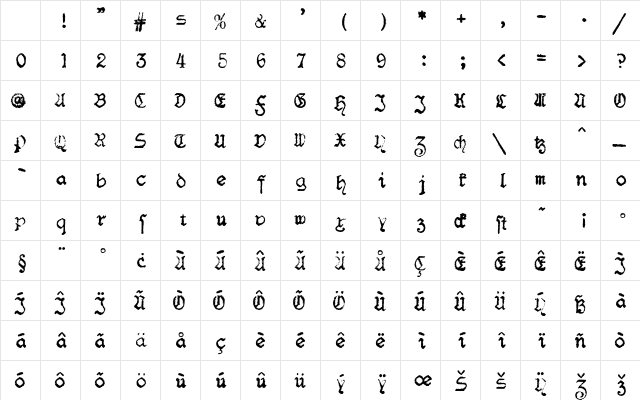
Complete F25 BlackletterTypewriter Regular glyph index. Displaying only characters natively supported by F25 BlackletterTypewriter Regular font.
F25 BlackletterTypewriter draws on the rich tradition of blackletter calligraphy, with dense, angular strokes that evoke medieval manuscripts and old-world craftsmanship.
Font Pairing: Pair with a clean neutral sans-serif for body copy to let F25 BlackletterTypewriter's character lead without overwhelming the composition.
Pro Tip: Reserve F25 BlackletterTypewriter for display and logo use - pair it with a clean sans-serif for body copy to prevent the composition from feeling oppressive.